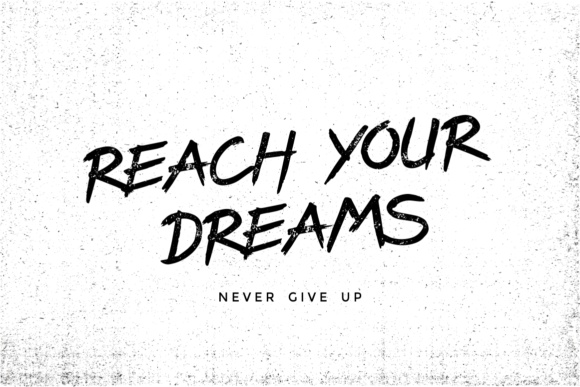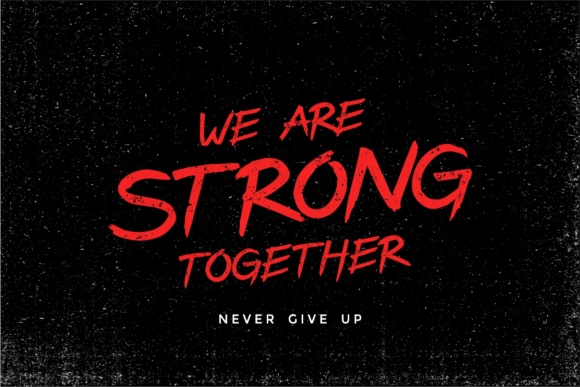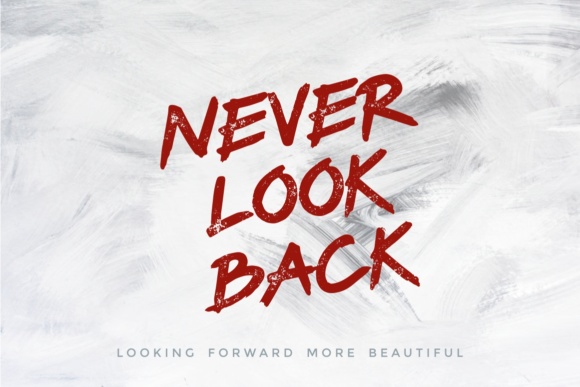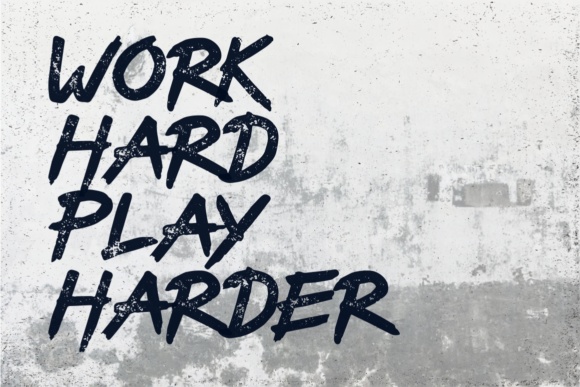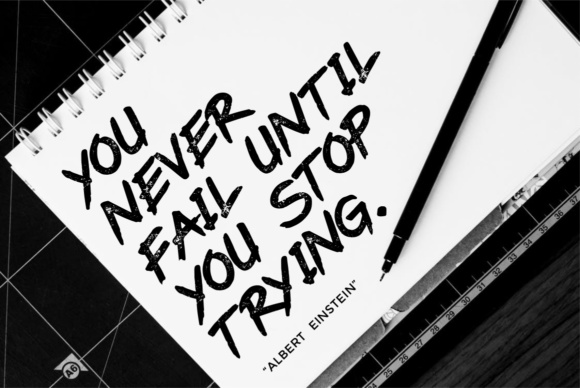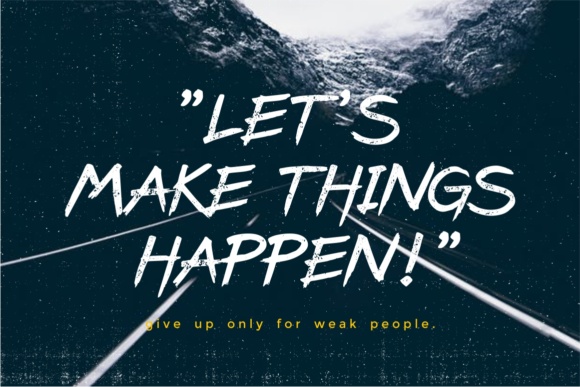
Introduction to Pax Suyud Font
PaxSuyud is a hand-drawn brush font with rough style.
The PaxSuyud font is available in a Regular and a Bold style .
Key Features of Pax Suyud Font